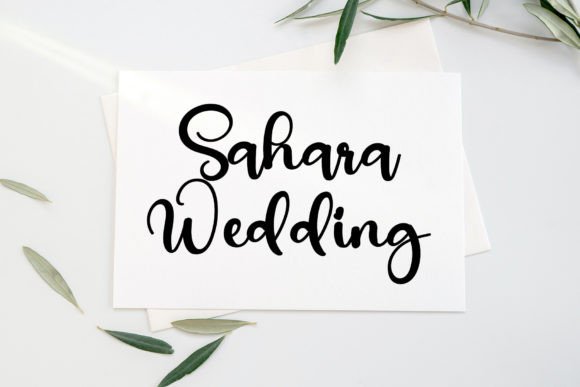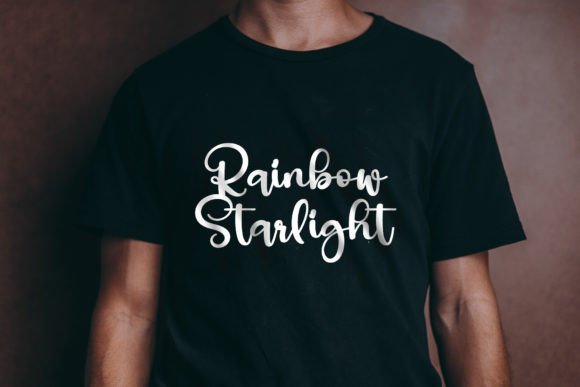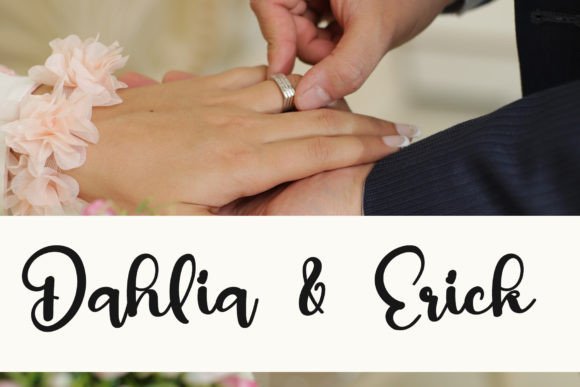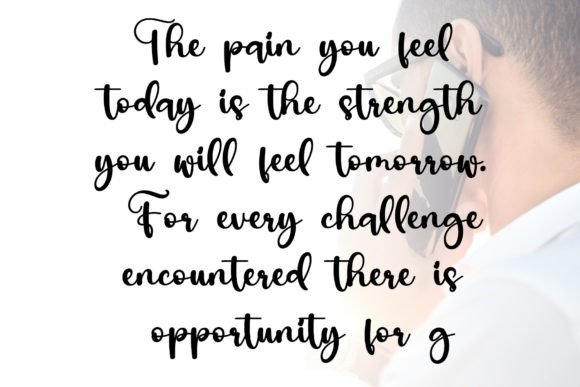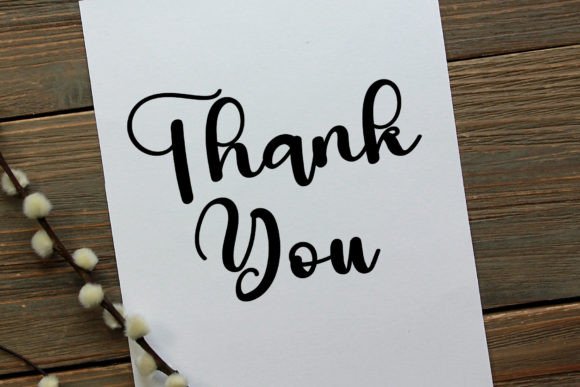
Bumbling Font: Elevate Your Designs with Elegance and Delicacy
In the world of typography, a well-crafted font can make all the difference in elevating your design to the next level. For designers and crafters seeking a touch of elegance and delicacy, the Bumbling Font is an excellent choice. This beautiful, handwritten typeface is perfect for a variety of design needs, from logos and branding to social media posts, advertisements, business cards, wedding invitations, and product design.
What Makes Bumbling Font Special?
Bumbling is an elegant and delicate handwritten typeface that exudes sophistication and refinement. Its unique charm lies in its ability to add a personal touch to any design, making it stand out from the crowd. Whether you’re working on a logo, a social media post, or a wedding invitation, Bumbling Font is sure to impress.
Key Features of Bumbling Font
- Elegant and Delicate: Bumbling Font boasts a beautiful, handwritten design that adds a touch of elegance and delicacy to any project.
- PUA Encoded: This font is PUA (Private Use Area) encoded, which means you can access all the glyphs and alternates with ease, giving you greater flexibility and creative control.
- Versatile: Bumbling Font is perfect for a wide range of design applications, including logos and branding, social media posts, advertisements, business cards, wedding invitations, product design, and more.
Use Cases for Bumbling Font
Bumbling Font is an incredibly versatile typeface that can be used in a variety of design contexts. Here are some examples of how you can use this beautiful font:
- Social Media Posts: Elevate your social media presence with eye-catching posts that feature Bumbling Font’s elegant and delicate design.
- Advertisements: Grab attention and drive engagement with ads that feature this beautiful, handwritten typeface.
- Business Cards: Make a great first impression with business cards that feature Bumbling Font’s sophisticated design.
- Wedding Invitations: Add a touch of romance and elegance to your wedding invitations with this beautiful font.
- Product Design: Create stunning product designs that showcase your brand’s style and personality.
Why Designers and Crafters Love Bumbling Font
Designers and crafters love Bumbling Font for its unique combination of elegance, delicacy, and versatility. Here are some reasons why:
- Unique Design: Bumbling Font’s handwritten design sets it apart from other typefaces, making it perfect for designers and crafters seeking a distinctive look.
- Easy to Use: This font is PUA encoded, making it easy to access all the glyphs and alternates, even for those without extensive design experience.
- High-Quality: Bumbling Font is a high-quality typeface that is designed to deliver exceptional results in a variety of design applications.
In conclusion, Bumbling Font is an exceptional choice for designers and crafters seeking a beautiful, elegant, and delicate handwritten typeface. Its versatility, unique design, and ease of use make it perfect for a wide range of design applications. Whether you’re working on a logo, social media post, wedding invitation, or product design, Bumbling Font is sure to elevate your design to the next level.